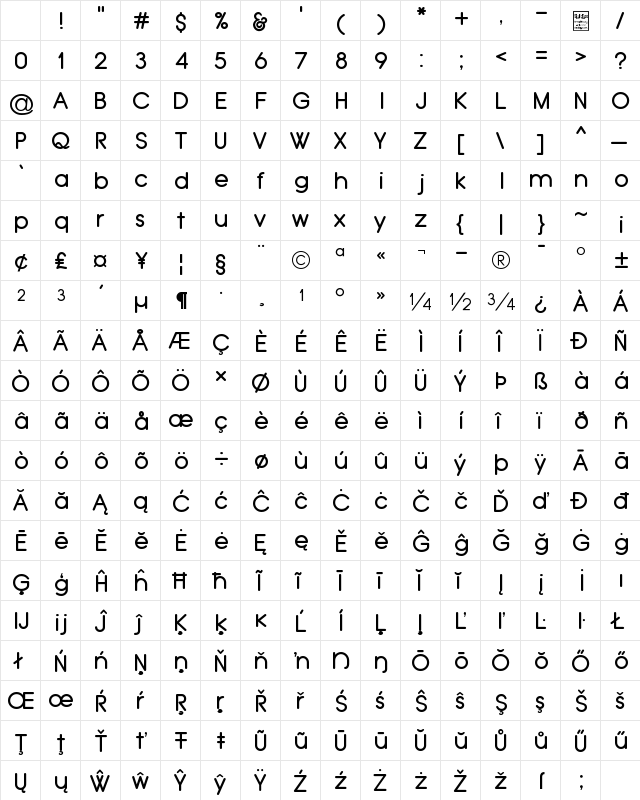
Complete Typo Grotesk Rounded Regular glyph index. Displaying only characters natively supported by Typo Grotesk Rounded Regular font.
Typo Grotesk Rounded takes a clean, functional approach - its unadorned letterforms prioritise legibility and work reliably across screen and print environments.